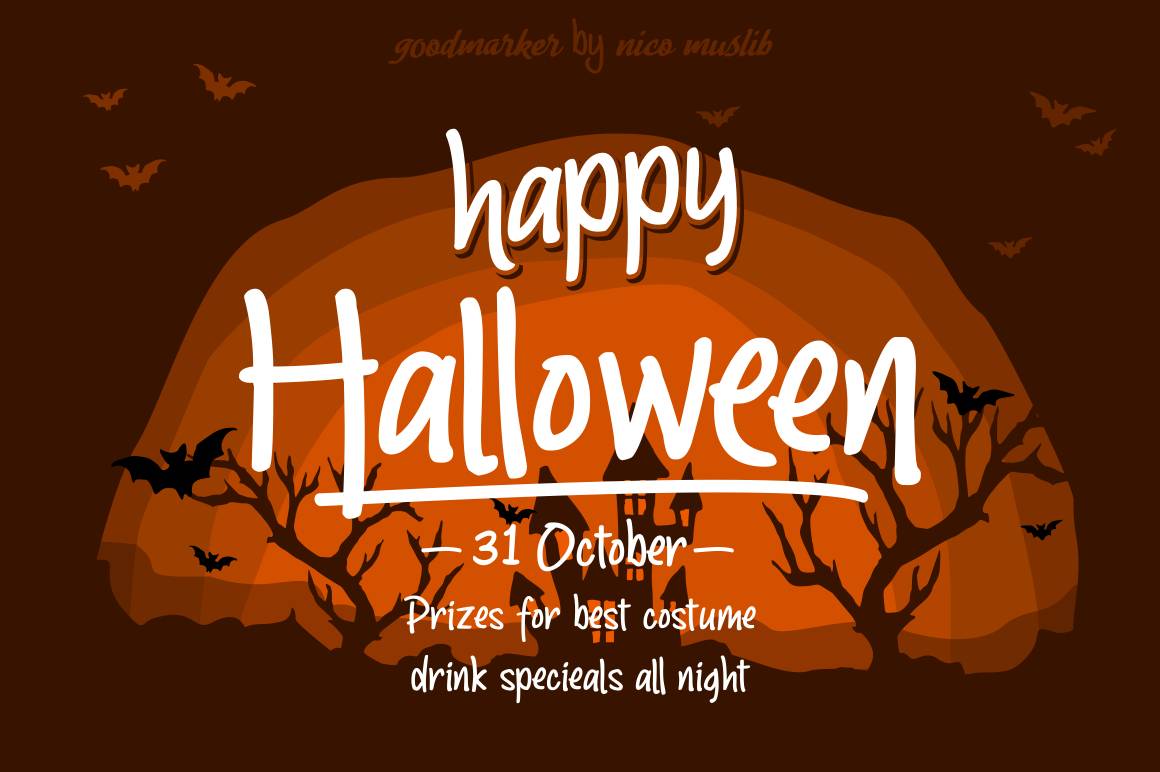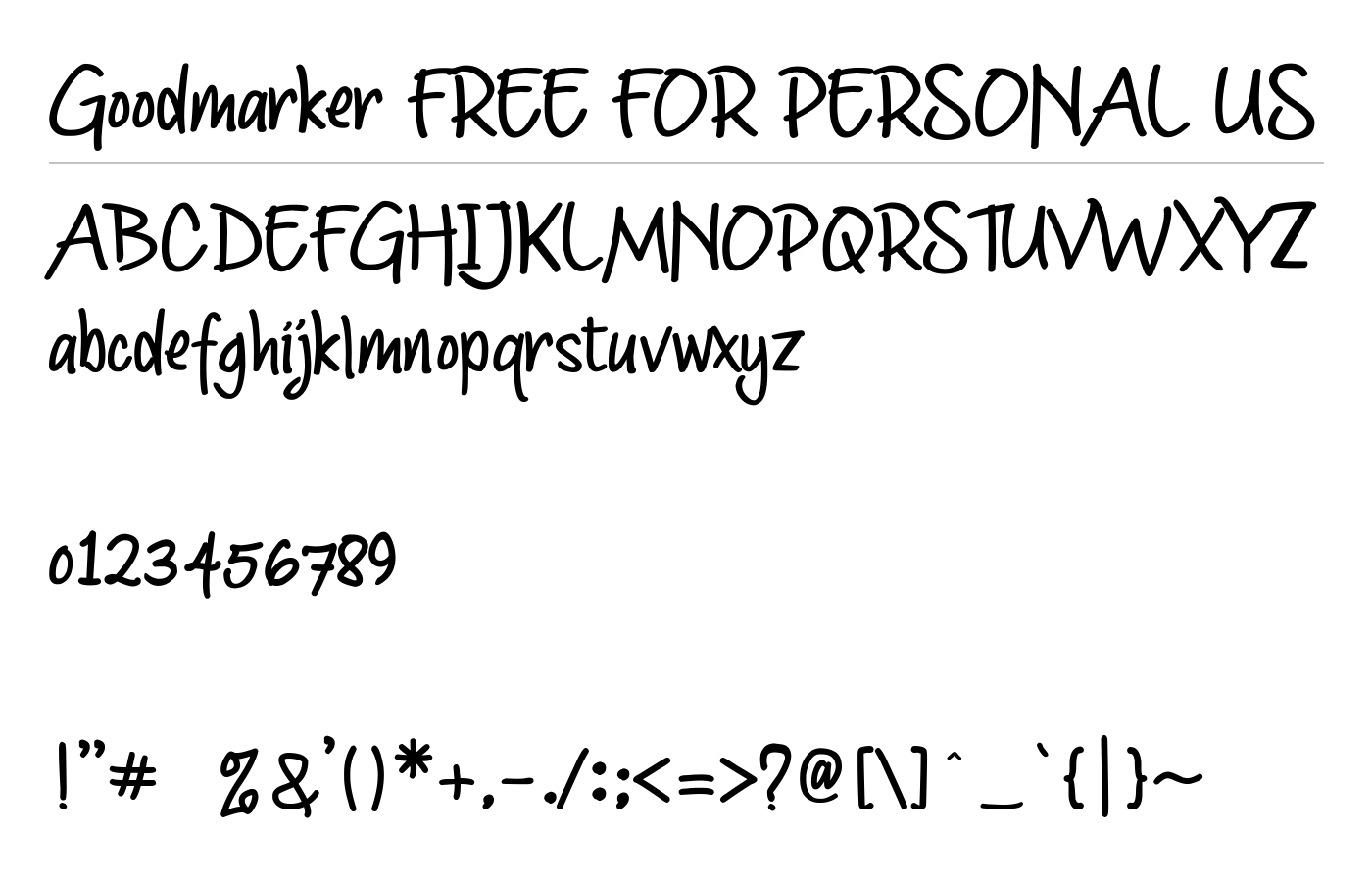
Goodmarker Script is a casual, handwritten sans serif font with a playful and friendly feel. Its slightly irregular strokes and lively letterforms give it a natural, personal touch, making it ideal for creative projects, informal branding, and engaging web or print designs that require a warm, approachable vibe. This typeface works well for headlines, logos, and social media graphics where an inviting, easygoing style is desired.
Goodmarket Script Font
About Goodmarket Script Font